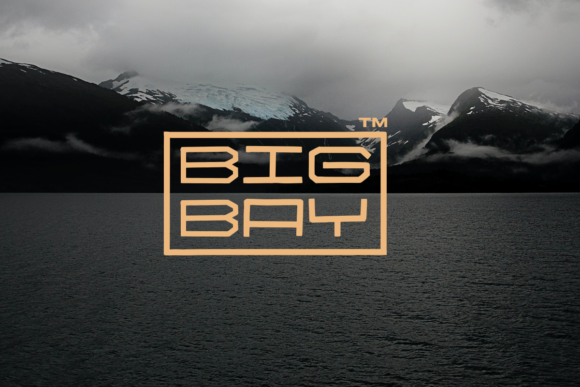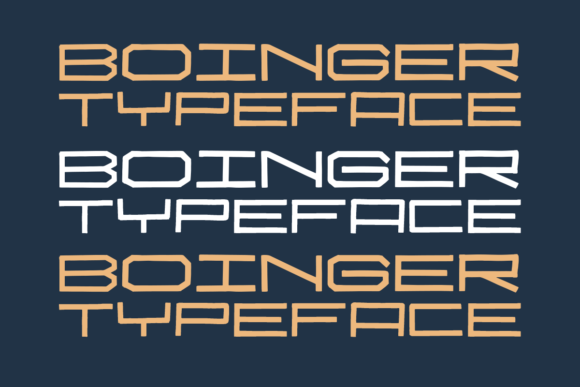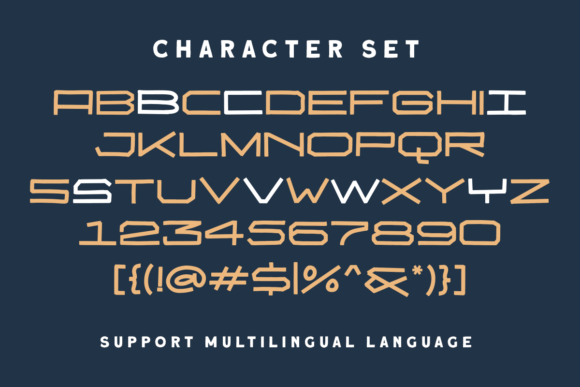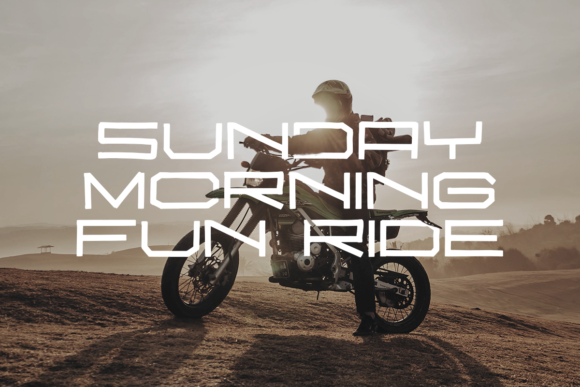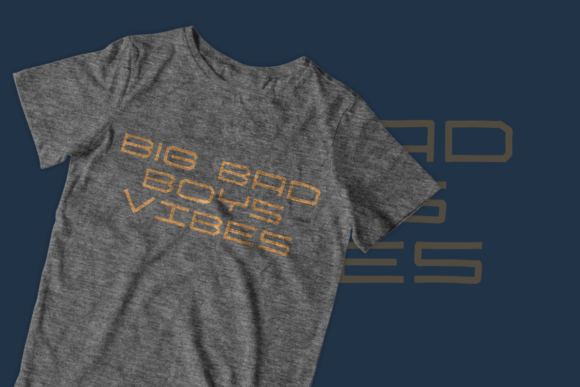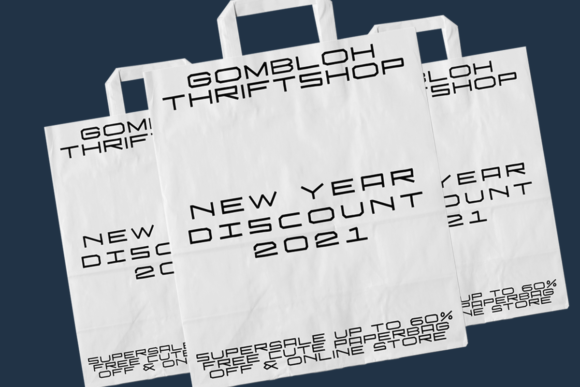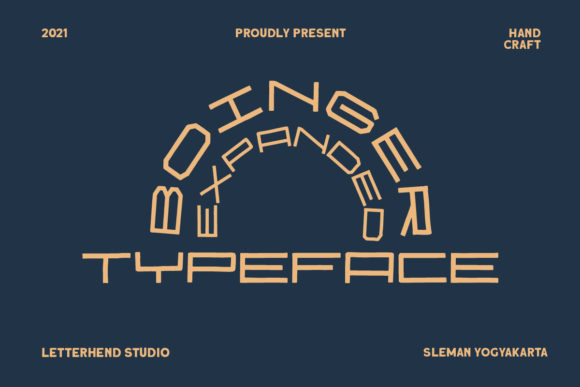
Introducing Boinger Font: The Perfect Vintage-Styled Display Font for Designers and Crafters
Are you tired of using the same old fonts for your designs and crafts? Look no further! Boinger Font is here to revolutionize your creative projects with its unique, vintage-styled display font. Featuring the perfect amount of trendiness, Boinger is the ideal choice for designers, crafters, and anyone looking to add a touch of elegance and sophistication to their work.
What Makes Boinger Font So Special?
Boinger Font is a one-of-a-kind display font that boasts a distinctive vintage style, perfect for making a statement in any design project. Its unique blend of classic and modern elements makes it versatile and suitable for a wide range of applications, from digital designing and presentations to crafting and greeting card making.
Whether you’re a professional designer or a crafty enthusiast, Boinger Font is the perfect choice for adding a touch of personality and flair to your work. Its elegant and refined aesthetic makes it ideal for projects that require a high level of sophistication, such as:
- Digital designing: Use Boinger Font to create stunning social media graphics, blog headers, and website titles that will leave a lasting impression on your audience.
- Crafting: Add a touch of vintage charm to your handmade crafts, such as scrapbooking, card making, and journaling.
- Presentations: Make your presentations stand out with Boinger Font’s elegant and refined aesthetic, perfect for titles, headings, and emphasis text.
- Greeting card making: Create beautiful and unique greeting cards for special occasions, such as birthdays, weddings, and holidays.
Key Features of Boinger Font
So, what sets Boinger Font apart from other fonts? Here are some of its key features:
- Unique vintage style: Boinger Font boasts a distinctive vintage aesthetic that’s perfect for adding a touch of elegance and sophistication to your designs.
- Trendiness: With its perfect blend of classic and modern elements, Boinger Font is both trendy and timeless.
- Versatility: Use Boinger Font for a wide range of applications, from digital designing and presentations to crafting and greeting card making.
- Elegant and refined: Boinger Font’s elegant and refined aesthetic makes it perfect for projects that require a high level of sophistication.
How to Use Boinger Font in Your Design Projects
Using Boinger Font in your design projects is easy! Here are some tips to get you started:
- Pair it with other fonts: Experiment with pairing Boinger Font with other fonts to create a unique and visually appealing combination.
- Use it for emphasis text: Use Boinger Font to draw attention to important text, such as headings, titles, and emphasis text.
- Add a pop of color: Use Boinger Font to add a pop of color to your designs, perfect for creating eye-catching graphics and illustrations.
In conclusion, Boinger Font is a unique and versatile display font that’s perfect for designers, crafters, and anyone looking to add a touch of elegance and sophistication to their work. With its vintage-styled aesthetic, trendiness, and versatility, Boinger Font is the ideal choice for a wide range of applications. So why wait? Try Boinger Font today and take your design projects to the next level!
Whether you’re a seasoned designer or a crafty enthusiast, Boinger Font is sure to inspire your creativity and help you create stunning designs that will leave a lasting impression on your audience.